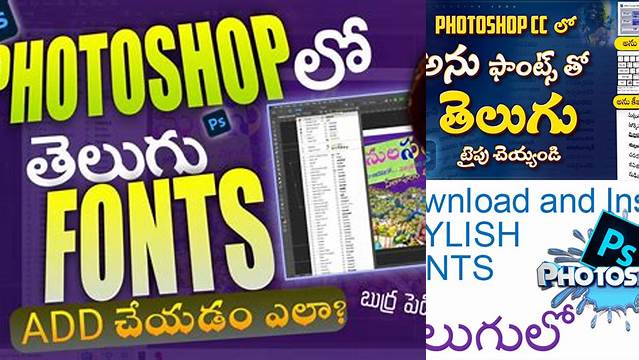
Telugu Fonts For Photoshop: A Complete Guide
Hey guys! Are you looking to add some amazing Telugu fonts to your Adobe Photoshop projects? You've come to the right place! Whether you're designing a stunning poster, creating eye-catching social media graphics, or working on any other visual masterpiece, having the right Telugu fonts can make all the difference. In this comprehensive guide, we'll explore everything you need to know about using Telugu fonts in Photoshop, from finding the best fonts to installing them and using them effectively. Let's dive in!
1. Understanding the Importance of Telugu Fonts in Design
When it comes to design, typography plays a crucial role in conveying your message effectively. For projects targeting a Telugu-speaking audience, using appropriate Telugu fonts is not just about aesthetics; it's about cultural relevance and readability. Imagine designing a beautiful poster, but the Telugu text is illegible or doesn't resonate with the audience. That's where the right fonts step in! They ensure your message is not only understood but also appreciated. The choice of font can significantly impact the overall look and feel of your design, so it's essential to choose wisely. Using Telugu fonts that reflect the tone and style of your content can help you connect with your audience on a deeper level. Plus, a well-chosen font can enhance readability, making your design more accessible and engaging. Think about it – a bold, strong font might be perfect for a headline, while a more elegant script font could be ideal for a wedding invitation.
2. Where to Find High-Quality Telugu Fonts for Photoshop
Finding the perfect Telugu fonts for your Photoshop projects can be an adventure! There are numerous online resources where you can discover both free and premium fonts. Websites like Google Fonts, Font Squirrel, and MyFonts offer a wide variety of options. Google Fonts is an excellent place to start, as it provides a range of open-source Telugu fonts that are free to use in both personal and commercial projects. Font Squirrel is another fantastic resource for free fonts, offering a curated selection of high-quality typefaces. For those willing to invest in premium fonts, MyFonts offers a vast library with a diverse range of styles. When searching for fonts, consider factors like readability, style, and licensing. Make sure the font supports the specific characters and glyphs needed for Telugu script. Reading reviews and previews can also help you gauge the quality and suitability of a font before downloading it. Don't be afraid to experiment with different fonts to see what works best for your project!
5. Best Practices for Using Telugu Fonts in Photoshop
Using Telugu fonts effectively in Photoshop involves more than just selecting a visually appealing typeface. It's about ensuring readability, maintaining visual harmony, and creating a design that resonates with your target audience. Start by considering the context of your design. Is it a formal document, a creative poster, or a social media graphic? The font you choose should align with the tone and purpose of the project. Pay attention to font pairing – combining different Telugu fonts or pairing a Telugu font with a Latin font can add visual interest, but it's important to do it thoughtfully. Avoid using too many fonts in a single design, as this can create a cluttered and confusing look. Consider the font size and spacing to ensure readability, especially in body text. Using proper kerning and leading can significantly improve the overall appearance of your text.
6. Exploring Different Styles of Telugu Fonts
Telugu fonts come in a variety of styles, each with its own unique personality and appeal. From traditional and elegant scripts to modern and bold sans-serif typefaces, there's a Telugu font for every design project. Serif fonts, with their small decorative strokes, often convey a sense of formality and tradition, making them suitable for formal documents or classical designs. Sans-serif fonts, on the other hand, have a cleaner, more modern look, making them ideal for contemporary designs and digital media. Script fonts, which mimic handwriting, can add a touch of elegance and personality to your designs, perfect for invitations or branding materials. Display fonts are designed to be eye-catching and are best used for headlines or short text elements. Exploring different styles can help you find the perfect font to match the tone and style of your project. Don't be afraid to experiment and see how different fonts can transform your design!
7. Free Telugu Fonts vs. Premium Telugu Fonts
When it comes to Telugu fonts, you'll find both free and premium options available. Free fonts can be a great resource, especially if you're working on a personal project or have a limited budget. Google Fonts, as mentioned earlier, offers a fantastic selection of free Telugu fonts that are high quality and easy to use. However, premium fonts often offer a wider range of styles, more refined designs, and additional features like multiple weights and glyphs. Investing in premium fonts can be worthwhile if you're working on professional projects or need a specific look and feel. Premium fonts often come with commercial licenses, which allow you to use them in client projects without any restrictions. Consider your project requirements and budget when deciding between free and premium fonts. Sometimes, a combination of both can be the best approach.
8. Understanding Font Licensing for Telugu Fonts
Font licensing is an important aspect to consider when using Telugu fonts in your projects. Different fonts come with different licenses, which dictate how you can use them. Some fonts are free for both personal and commercial use, while others may have restrictions. For example, a font might be free for personal use but require a commercial license for use in client projects or products for sale. It's crucial to read the font license carefully before using a Telugu font to ensure you're complying with the terms. Using a font without the proper license can lead to legal issues and fines. If you're unsure about the licensing terms, it's always best to err on the side of caution and contact the font designer or foundry for clarification. Understanding font licensing can save you a lot of headaches down the road.
9. Troubleshooting Common Telugu Font Issues in Photoshop
Sometimes, you might encounter issues when using Telugu fonts in Photoshop. Don't panic! Most font-related problems have simple solutions. One common issue is the font not appearing in Photoshop's font menu after installation. This can often be resolved by restarting Photoshop or your computer. Another issue might be garbled or missing characters. This can happen if the font doesn't fully support the Telugu script or if there's a compatibility issue with your system. Make sure the font you're using is specifically designed for Telugu and that your operating system supports the script. If you're still having trouble, try clearing Photoshop's font cache or updating to the latest version of Photoshop. You can also check online forums and communities for solutions specific to your issue.
10. Creating Stunning Designs with Telugu Fonts
Now for the fun part – creating awesome designs with your Telugu fonts! Think about how you can use typography to enhance your message and create a visual impact. Experiment with different font styles, sizes, and colors to see what works best for your project. Use Telugu fonts to create eye-catching headlines, elegant body text, and unique branding elements. Consider the overall composition of your design and how the typography interacts with other elements like images and graphics. Don't be afraid to break the rules and try new things. Typography is an art, and the best designs often come from creative experimentation. Look at examples of well-designed Telugu typography for inspiration and guidance.
11. Combining Telugu Fonts with Other Fonts
Mixing and matching fonts can add a unique flair to your designs, but it's crucial to do it thoughtfully. When combining Telugu fonts with other fonts, consider the overall visual harmony. A common approach is to pair a Telugu font with a Latin font, creating a balanced and visually appealing contrast. Choose fonts that complement each other in terms of style and weight. For example, you might pair a bold Telugu font with a simple sans-serif Latin font for a modern look, or an elegant Telugu script font with a classic serif Latin font for a more traditional feel. Avoid using too many different fonts in a single design, as this can create a cluttered and confusing appearance. Stick to a maximum of two or three fonts to maintain a cohesive and professional look.
12. The Role of Typography in Telugu Design
Typography plays a pivotal role in Telugu design, just as it does in any other visual communication. The choice of Telugu fonts can significantly impact the overall message and aesthetic of your design. Typography is more than just selecting a font; it's about using type effectively to convey information, evoke emotions, and create a visual hierarchy. Consider the readability, legibility, and visual appeal of your Telugu fonts. Use different font sizes, weights, and styles to create contrast and emphasize important elements. Pay attention to kerning, leading, and tracking to ensure your text is visually pleasing and easy to read. Typography should work in harmony with other design elements, such as color, imagery, and layout, to create a cohesive and impactful design.
13. Tips for Choosing the Right Telugu Font for Your Project
Choosing the right Telugu font for your project is a crucial step in the design process. Start by considering the purpose and target audience of your design. Is it a formal document, a marketing brochure, or a social media post? The font you choose should align with the tone and style of your project. Think about the message you want to convey and select a Telugu font that reflects that message. Readability is key, especially for body text. Choose a font that is easy to read at various sizes. Consider the font's character set and ensure it supports all the necessary Telugu characters and glyphs. Don't be afraid to experiment with different fonts and seek feedback from others.
14. Common Mistakes to Avoid When Using Telugu Fonts
Using Telugu fonts effectively requires attention to detail. There are several common mistakes that designers often make, which can negatively impact the overall look and feel of their designs. One common mistake is using too many different fonts in a single design, creating a cluttered and confusing appearance. Stick to a maximum of two or three fonts. Another mistake is choosing fonts that are not legible or readable. Ensure your Telugu fonts are easy to read at the intended size and in the context of your design. Avoid using fonts with poor spacing or kerning, as this can make the text look unprofessional. Neglecting font licensing is another common mistake. Always ensure you have the proper license to use a font in your projects.
15. The Future of Telugu Typography
The world of typography is constantly evolving, and Telugu typography is no exception. As technology advances and design trends change, we can expect to see new and innovative approaches to using Telugu fonts. The rise of digital media and the increasing demand for multilingual content are driving the development of new Telugu typefaces and font technologies. We may see more variable fonts that offer greater flexibility and customization options. The integration of artificial intelligence and machine learning in design tools could also lead to new ways of generating and using Telugu fonts. Staying up-to-date with the latest trends and technologies in typography is essential for designers who want to create impactful and engaging designs.
16. Telugu Font Pairing: Best Combinations
Pairing Telugu fonts effectively is an art that can elevate your designs. The best combinations often involve contrasting styles that complement each other. For a classic and elegant look, try pairing a traditional Telugu serif font with a simple sans-serif Latin font. This combination works well for formal documents and branding materials. For a modern and bold design, consider pairing a bold Telugu sans-serif font with a clean and geometric Latin font. This is a great choice for posters, websites, and social media graphics. Experiment with different font weights and sizes to create visual interest and hierarchy. Remember, the goal is to create a balanced and harmonious look that enhances the readability and impact of your message.
17. Designing Logos with Telugu Fonts
A logo is the face of a brand, and typography plays a crucial role in conveying a brand's identity. When designing logos with Telugu fonts, it's essential to choose a typeface that reflects the brand's personality and values. Consider the target audience and the message you want to communicate. A logo should be memorable, legible, and versatile, working well in both large and small sizes. Experiment with different Telugu font styles and weights to find the perfect fit. Pay attention to the kerning and spacing of the letters to ensure the logo looks polished and professional. A well-designed logo can help a brand stand out and create a lasting impression.
18. Creating Website Typography with Telugu Fonts
Website typography is crucial for user experience and readability. When using Telugu fonts on a website, it's essential to choose fonts that are web-safe and display correctly across different browsers and devices. Google Fonts offers a wide selection of Telugu fonts that are optimized for web use. Consider the font size, line height, and spacing to ensure the text is easy to read. Use headings and subheadings to create a clear visual hierarchy and make the content scannable. Pay attention to the contrast between the text color and the background color to ensure readability. A well-designed website typography can enhance the user experience and make your content more engaging.
19. Using Telugu Fonts in Print Design
Print design has its own set of considerations when it comes to typography. When using Telugu fonts in print projects, it's important to choose fonts that are legible and reproduce well in print. Consider the resolution of your printer and the paper stock you're using. Avoid using fonts that are too thin or delicate, as they may not print clearly. Pay attention to the kerning and spacing of the letters to ensure the text looks polished and professional. Use high-quality Telugu fonts that are specifically designed for print use. Proofread your designs carefully before printing to catch any errors or issues.
20. Telugu Fonts for Social Media Graphics
Social media graphics need to be eye-catching and engaging to stand out in a crowded feed. When using Telugu fonts in social media graphics, choose fonts that are bold and attention-grabbing. Use different font sizes and weights to create visual interest and hierarchy. Consider the overall design and how the typography interacts with other elements like images and colors. Use Telugu fonts that are easy to read on mobile devices, as most social media users access content on their phones. Experiment with different font styles and combinations to find what works best for your brand.
21. How Telugu Fonts Reflect Culture
Telugu fonts are more than just a way to write words; they are a reflection of Telugu culture and heritage. The unique shapes and strokes of Telugu script carry centuries of history and tradition. Different Telugu font styles can evoke different emotions and associations, from classical and formal to modern and playful. Using appropriate Telugu fonts in your designs can help connect with your target audience and create a sense of cultural relevance. Consider the cultural context when choosing a Telugu font and ensure it aligns with the message you want to convey.
22. The Anatomy of a Telugu Font
Understanding the anatomy of a Telugu font can help you appreciate the intricacies of the script and make informed design choices. Telugu script consists of vowels, consonants, and diacritics that combine to form syllables and words. Each character has its own unique shape and structure, with specific strokes and curves. Telugu fonts are designed to maintain the legibility and aesthetic appeal of the script while adhering to typographic principles. Understanding the anatomy of a Telugu font can help you choose the right typeface for your project and ensure your designs are visually appealing and culturally appropriate.
23. Telugu Calligraphy and Its Influence on Fonts
Telugu calligraphy has a rich history and has significantly influenced the design of Telugu fonts. Traditional Telugu calligraphy involves creating elegant and flowing letterforms using a pen or brush. Many modern Telugu fonts draw inspiration from calligraphy, incorporating calligraphic elements such as curved strokes and decorative flourishes. Understanding the principles of Telugu calligraphy can help you appreciate the beauty and artistry of Telugu fonts and make informed design choices.
24. Creating a Telugu Font: The Design Process
Creating a Telugu font is a complex and time-consuming process that requires a deep understanding of typography and Telugu script. The process typically involves researching and sketching letterforms, digitizing the designs, and refining the characters to ensure consistency and legibility. A Telugu font designer must consider the unique characteristics of the script and create a typeface that is both visually appealing and easy to read. The process also involves testing the font in various contexts and making adjustments as needed.
25. Resources for Learning Telugu Typography
If you're interested in learning more about Telugu typography, there are many resources available online and in print. Websites like Google Fonts and Font Squirrel offer articles and tutorials on typography and font design. Books on typography and graphic design can also provide valuable insights into the principles of effective typography. Consider taking a course or workshop on Telugu font design to gain hands-on experience and learn from experts in the field.
26. The Importance of Kerning and Tracking in Telugu Fonts
Kerning and tracking are essential typographic concepts that affect the spacing between letters and the overall appearance of text. Kerning refers to the adjustment of space between individual letter pairs, while tracking refers to the uniform adjustment of space between all letters in a word or phrase. Proper kerning and tracking are crucial for ensuring the legibility and visual appeal of Telugu fonts. Poor kerning and tracking can make text look cramped or spaced out, affecting its readability. Pay attention to kerning and tracking when working with Telugu fonts to create polished and professional designs.
27. Leading and Line Height in Telugu Typography
Leading, also known as line height, refers to the vertical space between lines of text. Proper leading is crucial for readability, especially in body text. Insufficient leading can make text look cramped and difficult to read, while excessive leading can create too much space between lines, making the text appear disjointed. The ideal leading for Telugu fonts depends on the typeface, font size, and length of the lines. Experiment with different leading values to find what works best for your project. Pay attention to leading and line height when designing with Telugu fonts to create a comfortable reading experience.
28. The Use of Telugu Fonts in Branding
Branding is all about creating a unique and memorable identity for a company or product. Typography plays a crucial role in branding, and the choice of Telugu fonts can significantly impact a brand's image. Choose Telugu fonts that align with the brand's personality and values. Consider the target audience and the message you want to convey. Use typography to create a consistent brand identity across all marketing materials, from logos and websites to brochures and social media graphics.
29. Telugu Fonts and Accessibility
Accessibility is an important consideration in design, ensuring that your content is usable by people with disabilities. When using Telugu fonts, choose typefaces that are legible and easy to read for people with visual impairments. Use sufficient contrast between the text color and the background color. Provide alternative text descriptions for images containing text. Follow accessibility guidelines when designing with Telugu fonts to create inclusive and user-friendly designs.
30. Future Trends in Telugu Font Design
The field of Telugu font design is constantly evolving, with new trends and technologies emerging. We can expect to see more variable fonts that offer greater flexibility and customization options. The integration of AI and machine learning in design tools may lead to new ways of generating and using Telugu fonts. The increasing demand for multilingual content will continue to drive the development of new Telugu typefaces and font technologies. Staying up-to-date with the latest trends and technologies is essential for designers who want to create innovative and impactful designs with Telugu fonts. 🤩